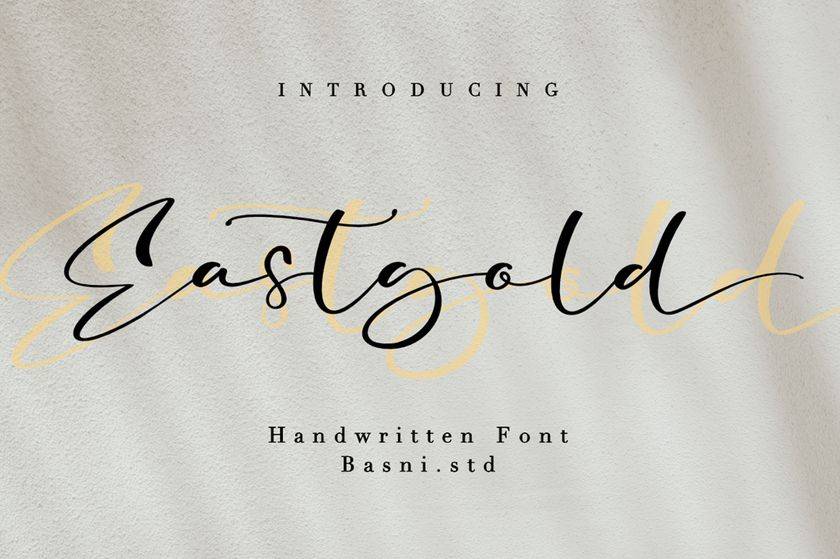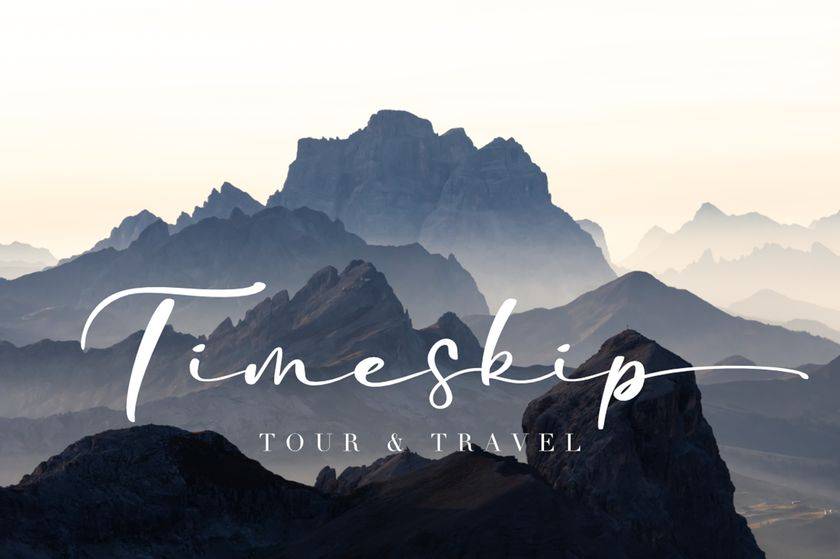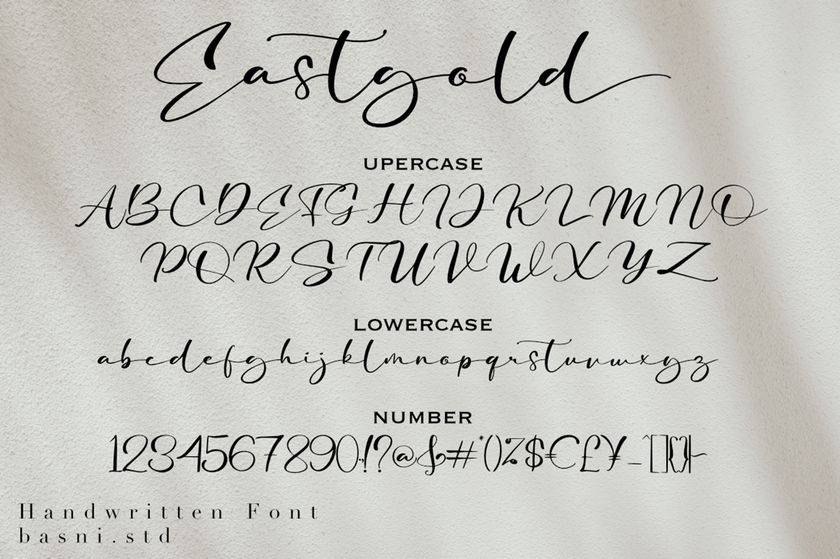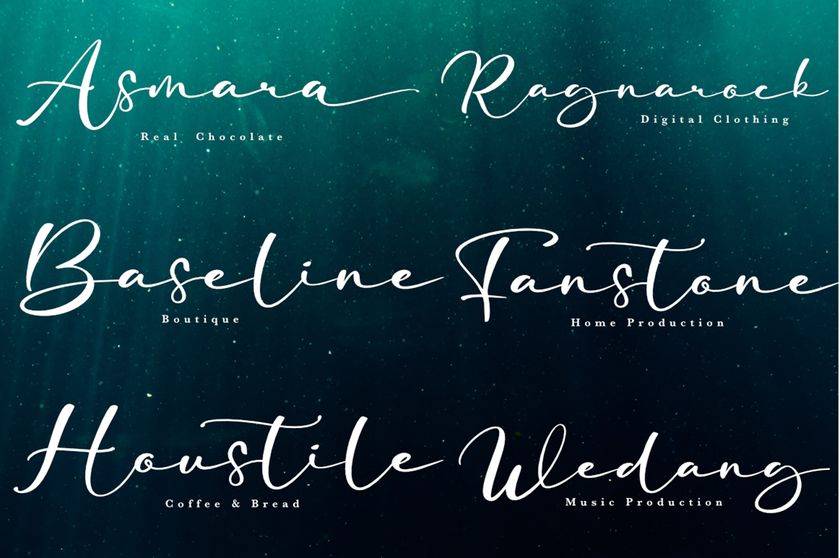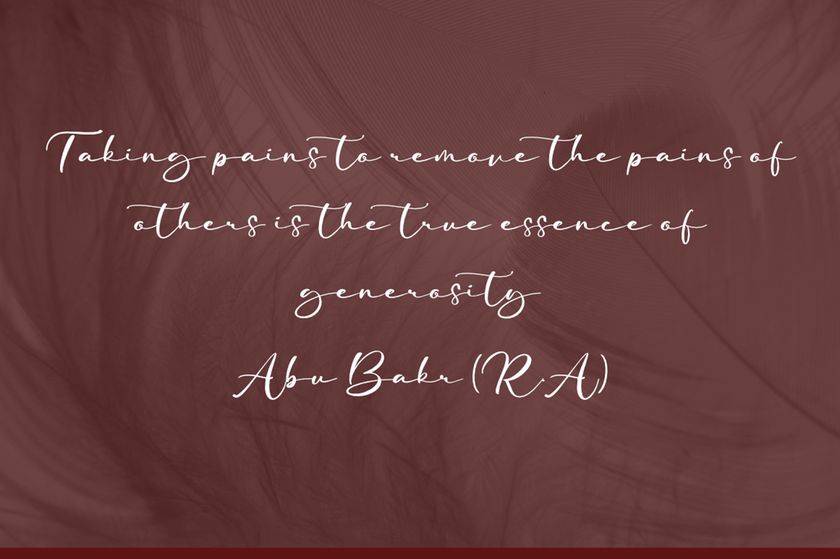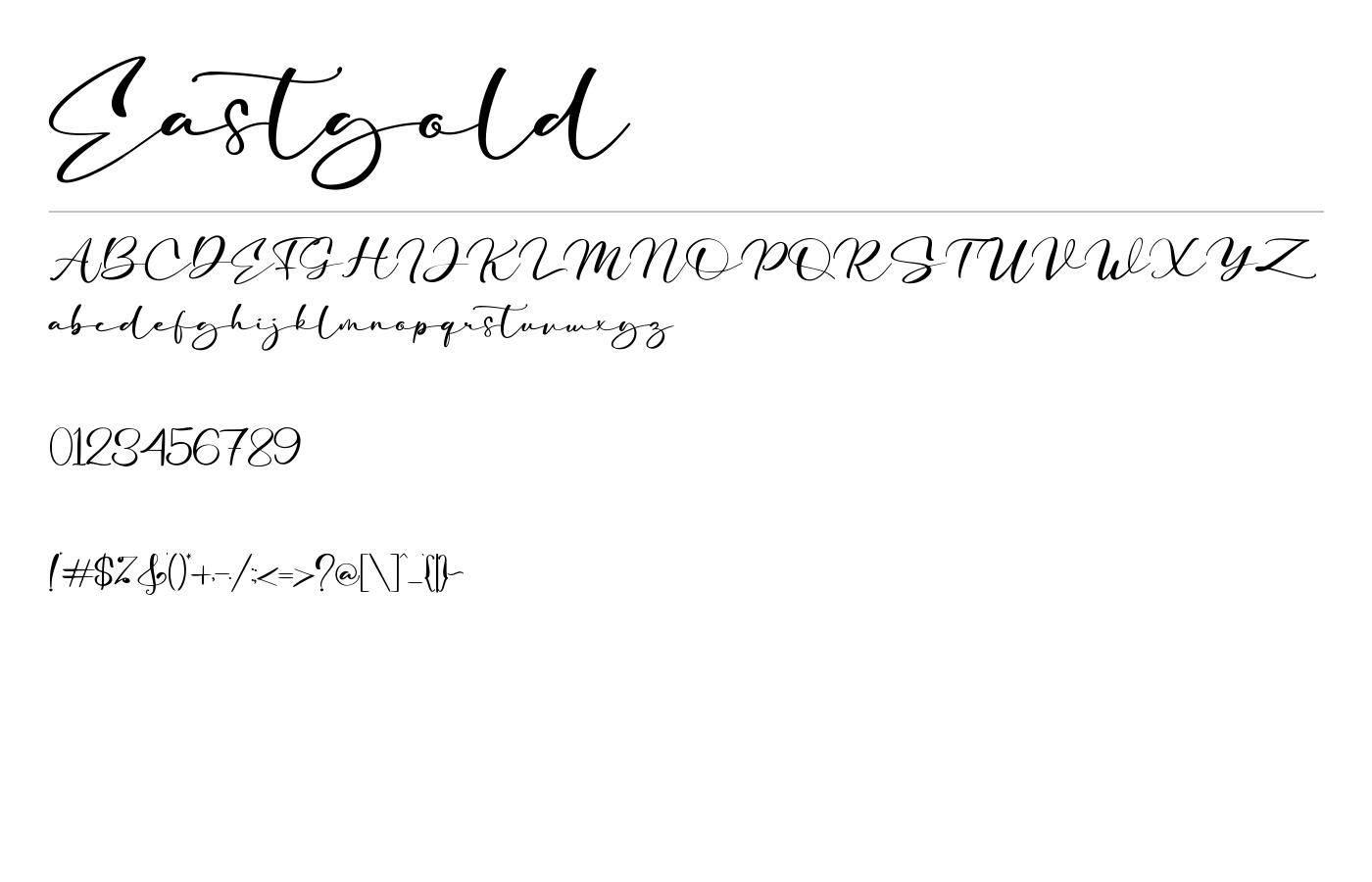
Eastgold is an elegant and delicate script font featuring flowing, handwritten-style letterforms with thin strokes and graceful swashes. Its sophisticated and airy design makes it perfect for luxury branding, invitations, and stylish editorial uses, where a refined yet personal touch is desired. This font shines in decorative headlines and logos that seek to convey a sense of charm and individuality.
Eastgold Font
About Eastgold Font